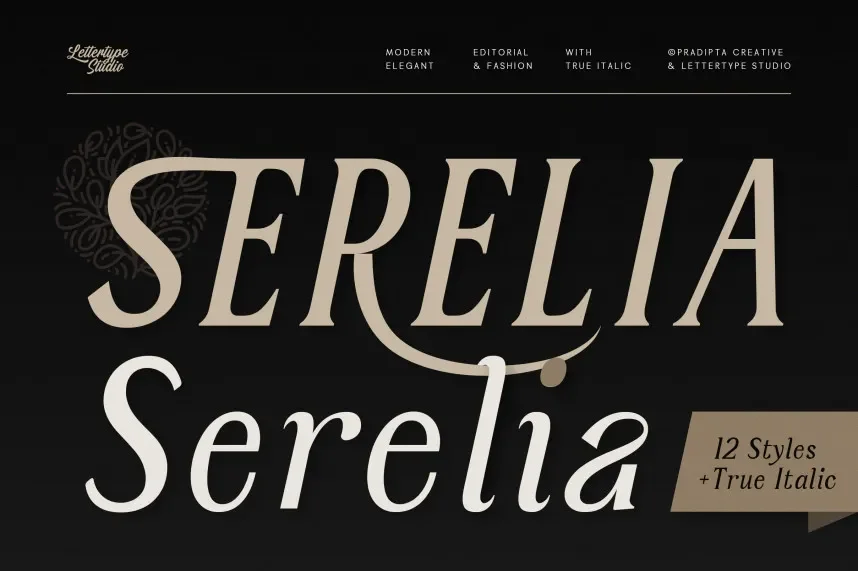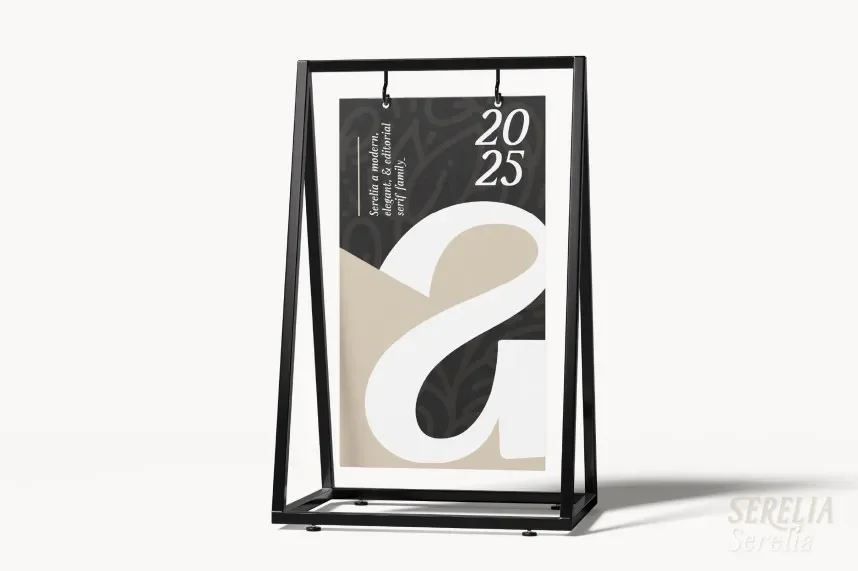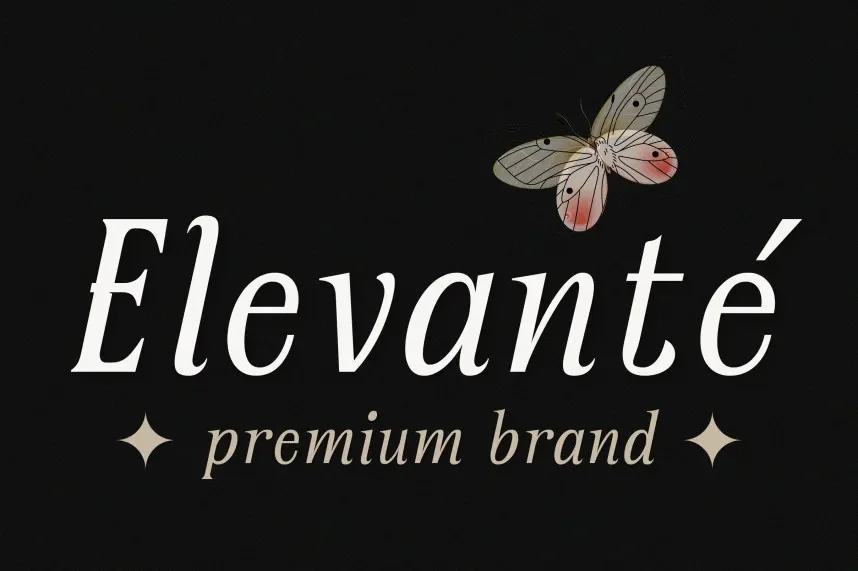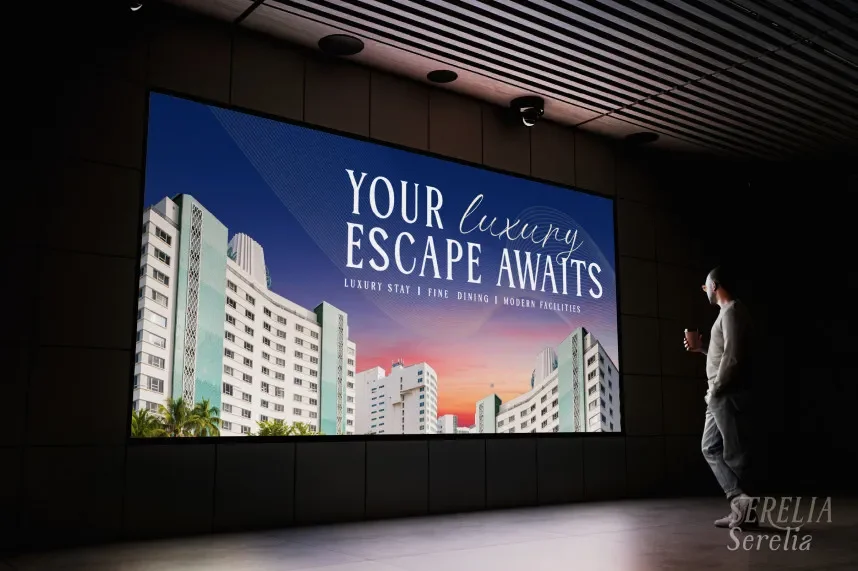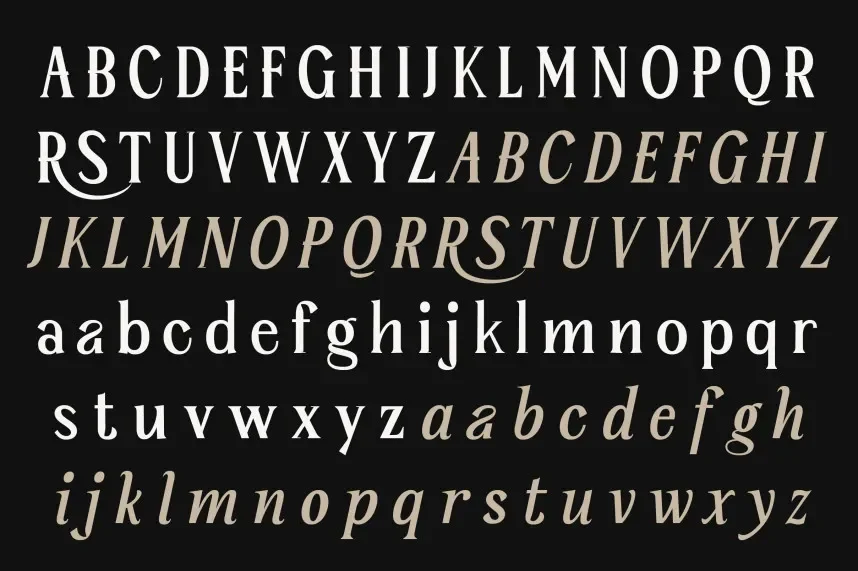
Serelia Font Family solves the need for stylish display serifs that retain legibility across print and digital media. Many display serifs fail in smaller sizes.
Serelia is a serif display typeface with moderate stroke contrast, elegant curves, and well-spaced letterforms. It balances decorative appeal with readability.